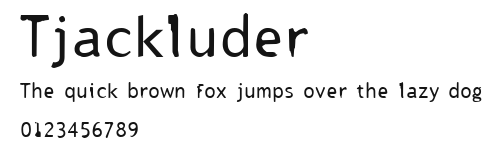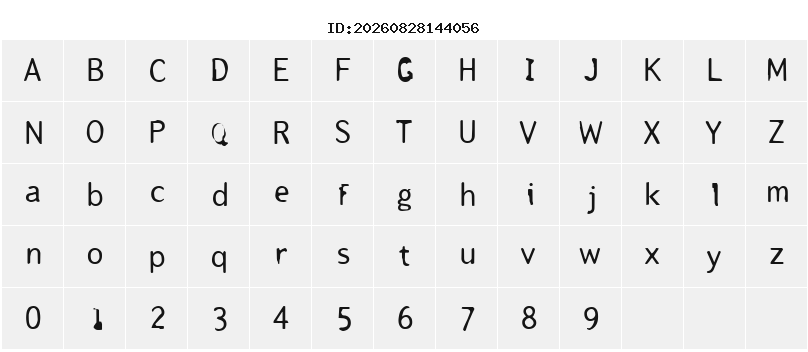
Tjackluder Preview
• Font Name: Tjackluder
• Full Font Name: Tjackluder
About Tjackluder.ttf
Tjackluder.ttf is a modern, elegant sans-serif font designed for ultimate readability and visual harmony. Perfect for branding, headlines, web design, and print materials.